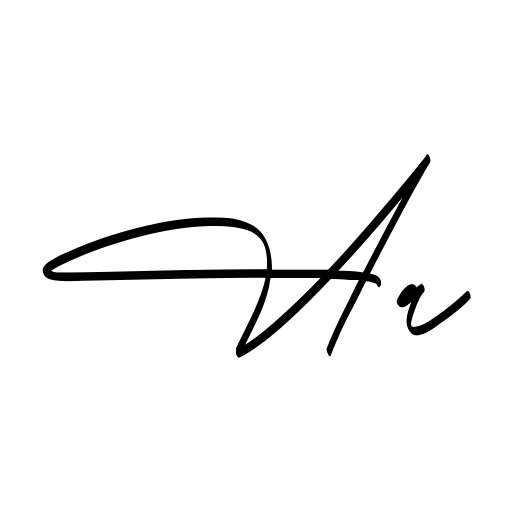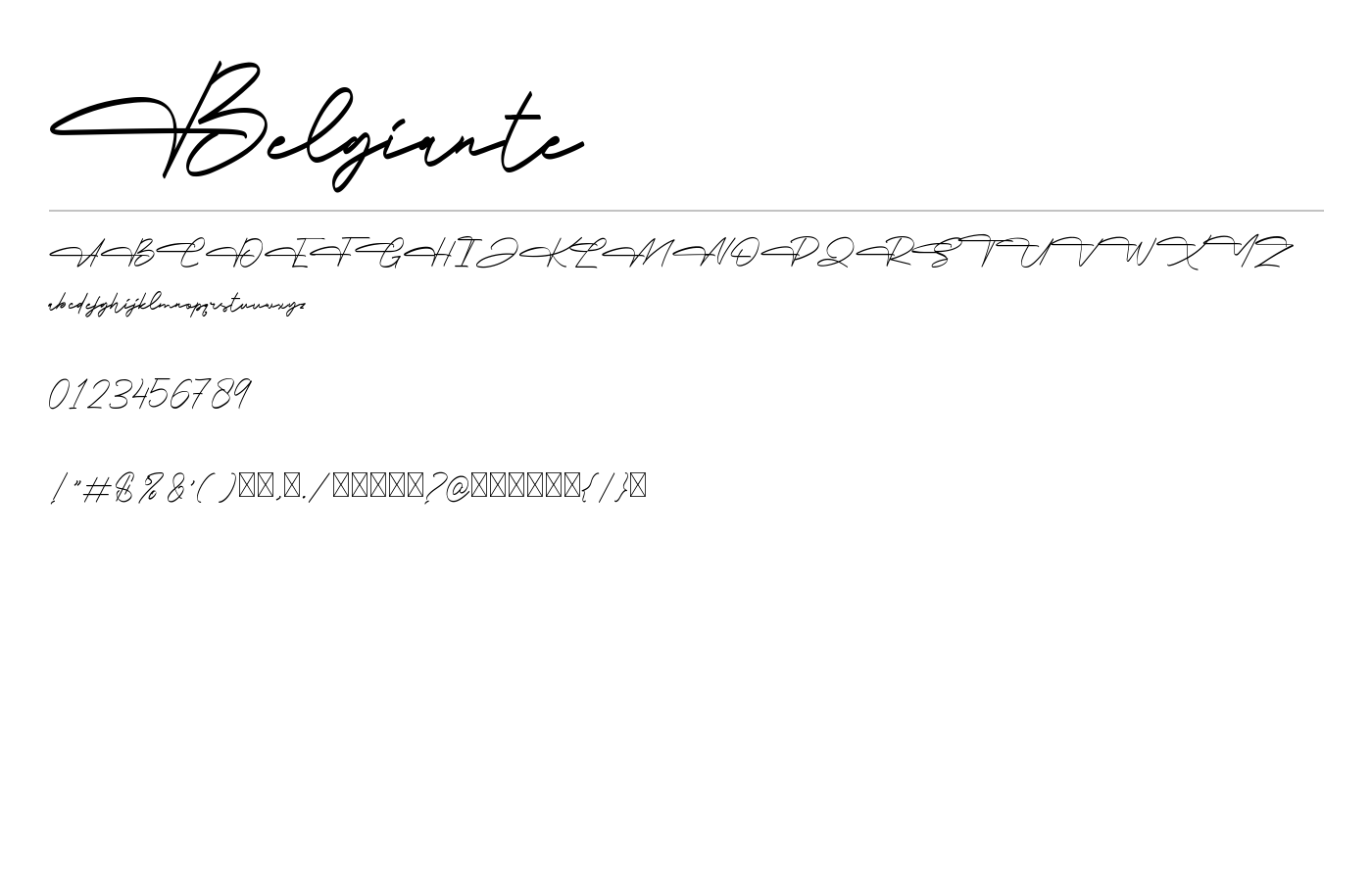
Belgiante is a delicate and elegant script font that mimics natural, flowing handwriting with thin, graceful strokes and fine details. Its light weight and airy style make it perfect for adding a sophisticated, personal touch to invitations, logos, and luxury branding, where a refined and artistic feel is desired. This font shines in designs that call for elegance and charm without overpowering the overall aesthetic.
Belgiante Font
About Belgiante Font
| Font family | Belgiante Font |